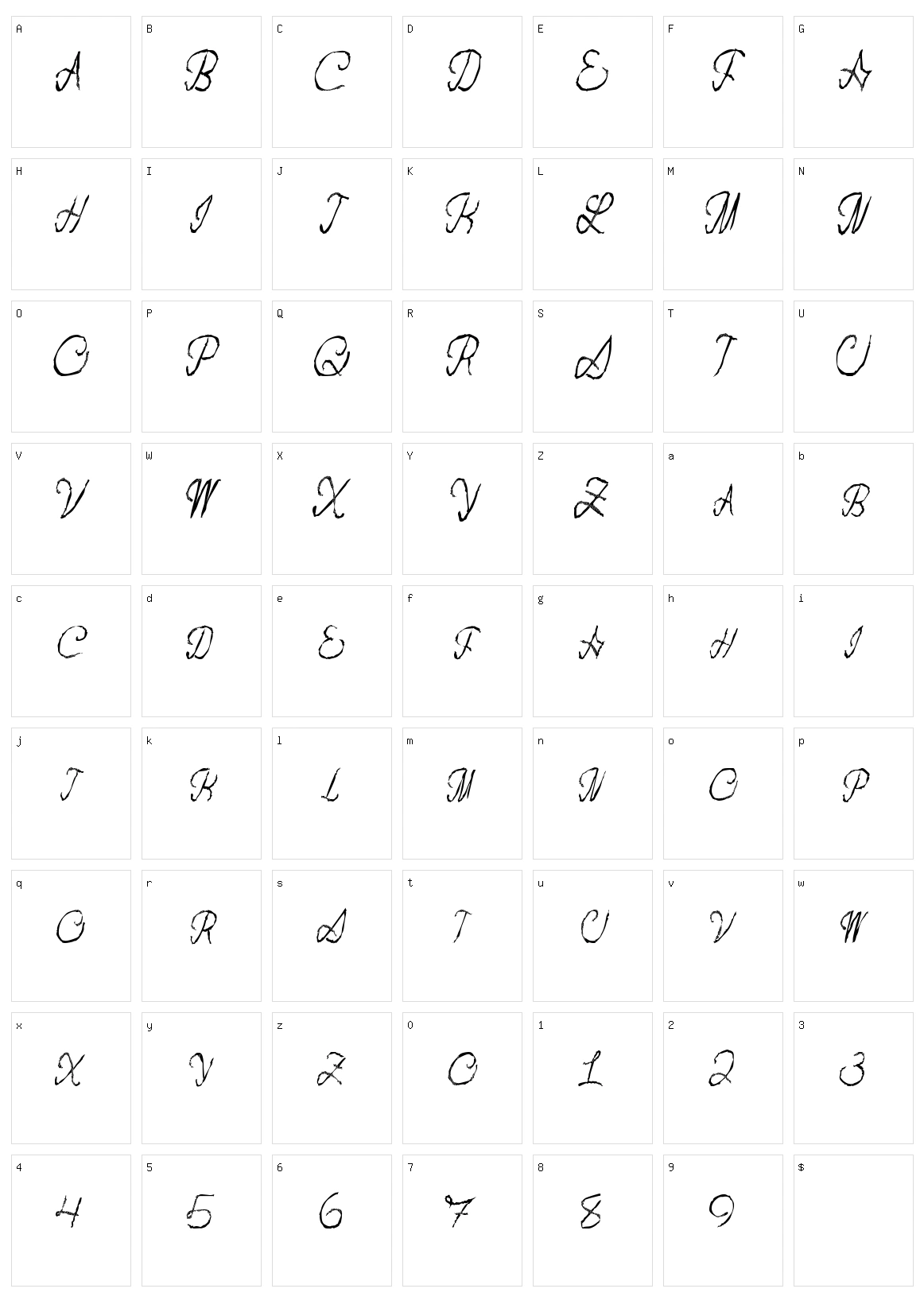
The free font Flash Dance is carefully designed by Xerographer Fonts, showcasing a thoughtful balance of creativity and usability and falls under the Trash font style. When you download the ZIP file, it contains only 45.47 KB of font files, making it lightweight and quick to download. Please review the license details below to understand permitted usage and distribution rights. If license information is not available, we recommend using this font for personal projects only or contacting the author directly for commercial usage permissions.